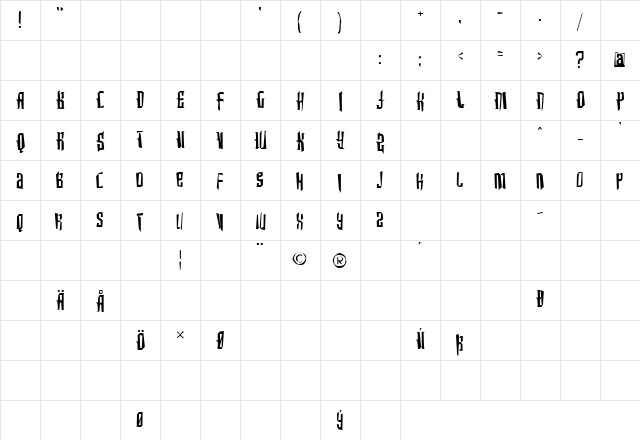
IntoTheBlueKrush Regular
Design Context for IntoTheBlueKrush Typeface
IntoTheBlueKrush is a composed and adaptable typeface that performs quietly and consistently across a wide range of design contexts.